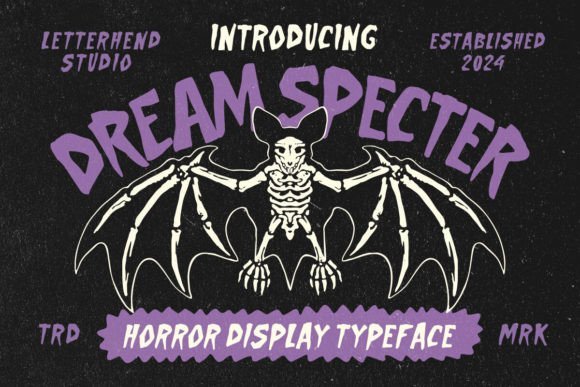
Introduction to Dream Specter Font
Introducing, Dream Specter – A display typeface font with horror feel.
This font has unique shape, very suitable for horror, thriller and spooky theme design This font also perfectly made to be applied especially in logo, and the other various formal forms such as invitations, labels, logos, magazines, books, novels, labels or any type of advertising purpose.
Key Features of Dream Specter Font